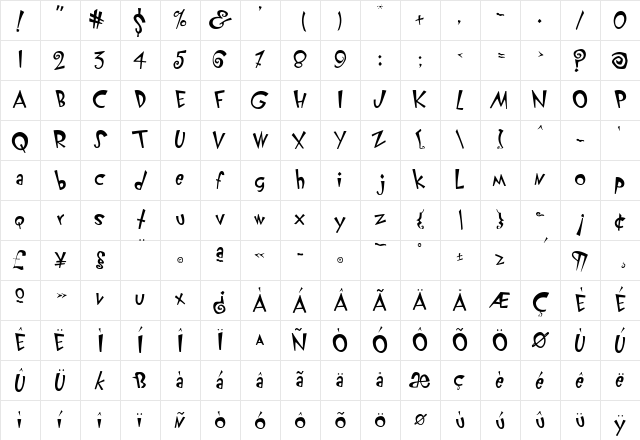
KlunderScript Regular
Design Context for KlunderScript
KlunderScript flows with the natural rhythm of handwritten lettering, making it ideal for designs that call for warmth and personal expression.
Font Pairing: Combine KlunderScript with a simple geometric sans for maximum contrast - the tension between flowing curves and clean structure is a classic typographic pairing.
Pro Tip: Use KlunderScript for short runs of text - names, titles, or taglines. Extended body copy in script faces tires the eye quickly.